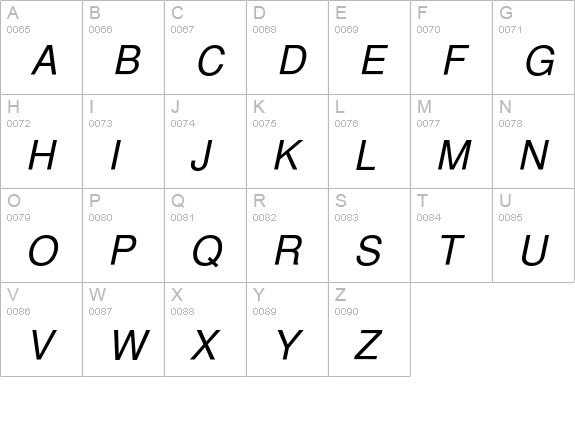
Sans-PS-Italic is a distinctive, italic variant in the Sans typeface family \xE2\x80\x94 well suited to design and typography projects.
Sans-PS-Italic is a sleek and modern font that exudes sophistication and elegance. With its clean lines and stylish curves, this italic typeface is perfect for adding a touch of class to any project. Whether you're designing a logo, creating a website, or working on a print publication, Sans-PS-Italic will make your text stand out with its unique flair. Best of all, Sans-PS-Italic is completely free to download at FontsMarket.com. This means you can enhance your designs with this high-quality font without having to spend a dime. Don't miss out on the opportunity to elevate your typography game with the Sans-PS-Italic font – download it today and see the difference it can make in your projects.